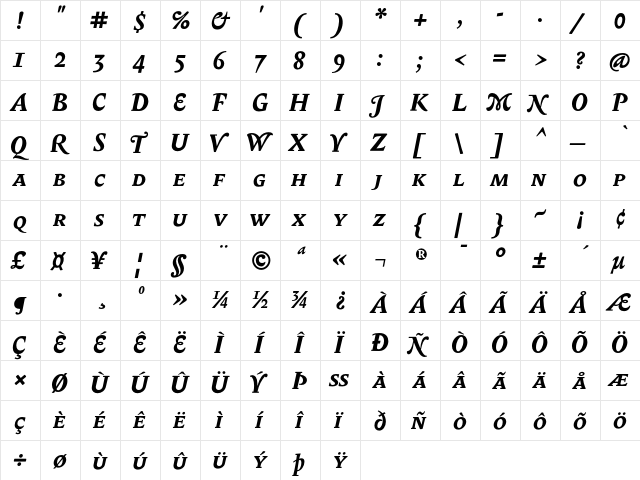
Biblon SC OT Bold Italic
Design Context for Biblon SC OT Typeface
Biblon SC OT takes a measured approach to typography — its balanced proportions and neutral character make it a reliable workhorse for both digital and print work. The dynamic lean of this cut emphasises speed and emphasis in any layout. Its bold stroke weight gives it real presence on the page.
Pro Tip: Use Biblon SC OT for emphasis, pull quotes, and subheadings where its slanted energy can add rhythm to the layout.